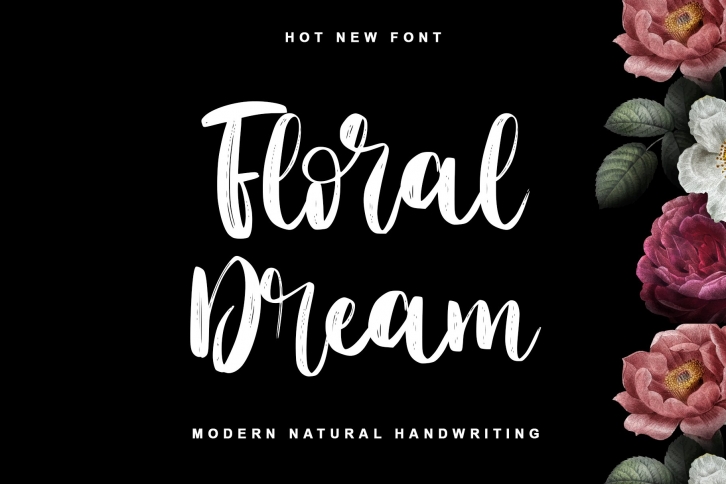
Floral Dream is a trendy and unique font with an authentic style. It was designed by Thomas Aradea and it's a great choice for creative people who need such a font. It was released on March 22, 2021 and the file size is 10.17 MB. Floral Dream will add an organic vibe to any design idea!